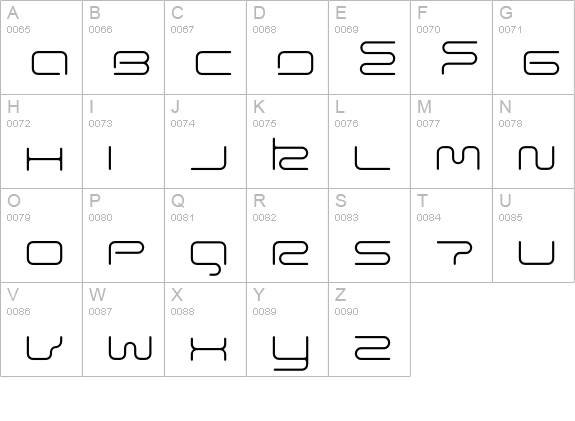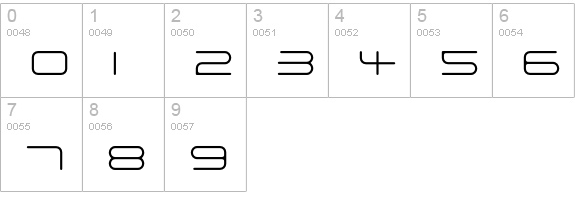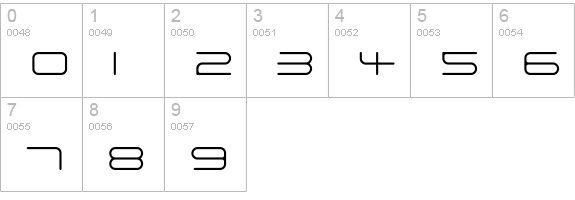
Euphoric-Thin is a delicate, low-contrast variant in the Euphoric typeface family \xE2\x80\x94 well suited to fashion editorial, minimal branding, and high-contrast display.
Euphoric-Thin font is a stunning and elegant typeface that exudes a sense of joy and positivity with its delicate and refined design. The thin, graceful strokes of this font give it a sophisticated and modern look that is perfect for a wide range of design projects. Whether you are creating invitations, logos, or branding materials, Euphoric-Thin font will add a touch of elegance and style to your work. This beautiful font is not only visually appealing but also incredibly versatile, making it perfect for both print and digital designs. Its clean and minimalist design ensures that it will stand out without overpowering the rest of your design elements. Euphoric-Thin font is a must-have for any designer looking to add a touch of sophistication and charm to their projects. The best part? Euphoric-Thin font is available for free download at FontsMarket.com. Take advantage of this amazing offer and add this exquisite font to your design arsenal today!